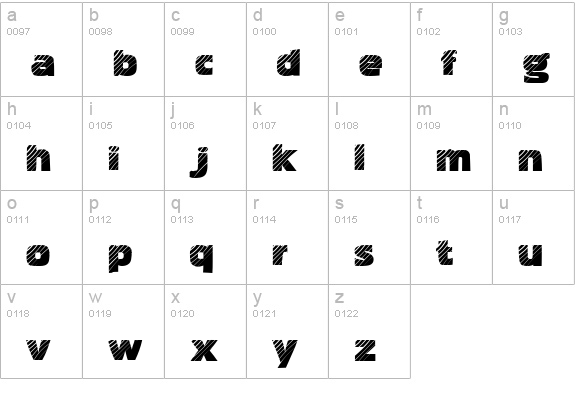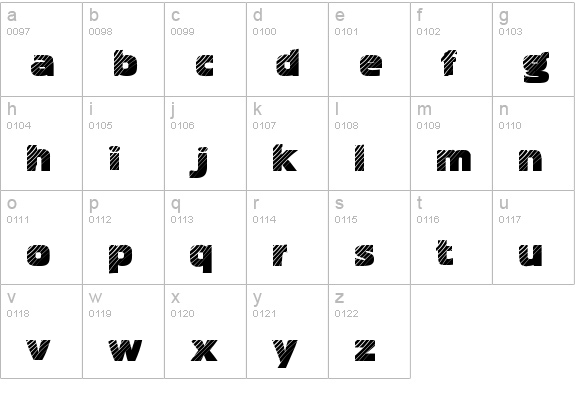
Pakenham Wood Font Details
Pakenham Wood is a charming and versatile font that exudes a sense of rustic elegance. With its unique woodcut-inspired design, this typeface brings a touch of the outdoors to your projects while maintaining a sophisticated appeal. The intricate details and organic feel of Pakenham Wood make it perfect for a wide range of design applications, from branding and packaging to invitations and signage. What sets Pakenham Wood apart is not just its aesthetic appeal, but also the fact that it is available for free download at FontsMarket.com. This means that you can easily access this high-quality font without having to worry about any cost. Whether you are a professional designer looking to add a new tool to your collection or a hobbyist in search of a unique font for your personal projects, Pakenham Wood is a fantastic choice that won't break the bank. Download it today and let your creativity soar with this beautiful and freely available font.